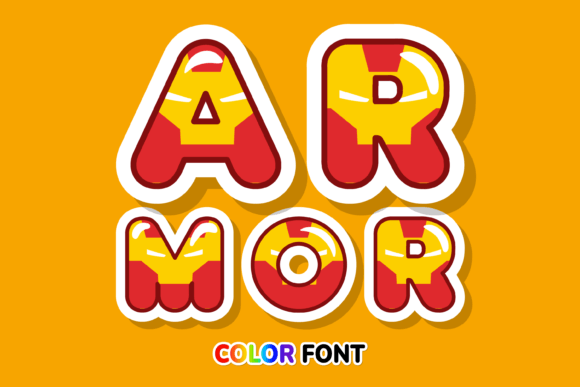
The Ultimate Guide to Armor Font: Unlocking Creative Possibilities
I’ll never forget the time I was working on a custom design project for a client who wanted a unique, eye-catching font to make their brand stand out. As I scrolled through my font library, I stumbled upon Armor Font, and it was love at first sight! 😍 This incredibly cool color font has since become a staple in my design toolkit, and I’m excited to share its awesomeness with you.
An Honest Review of Armor Font
So, what makes Armor Font so special? Let’s dive into the good stuff! 🤩
- ✨ Stunning color effects: This font is a game-changer for designs that require a pop of color. Its Opentype-SVG technology allows for seamless color transitions and intricate details.
- ✅ Versatility: Whether you’re creating custom designs, DIY crafts, or just any project that needs a touch of elegance, Armor Font fits the bill.
- ⚠️ Learning curve: If you’re new to color fonts or Opentype-SVG technology, it might take some time to get familiar with the features and capabilities of Armor Font.
The Story Behind Armor Font
Armor Font was designed by a team of creatives who wanted to push the boundaries of typography. Inspired by medieval armor and ancient manuscripts, they crafted a font that combines elegance with a touch of ruggedness. The result is a unique, eye-catching font that’s perfect for designers and crafters alike.
| What is Armor Font? | Armor Font is a color font (Opentype-SVG) designed for creative projects, compatible with PhotoShop, Illustrator, Silhouette, and Inkscape. |